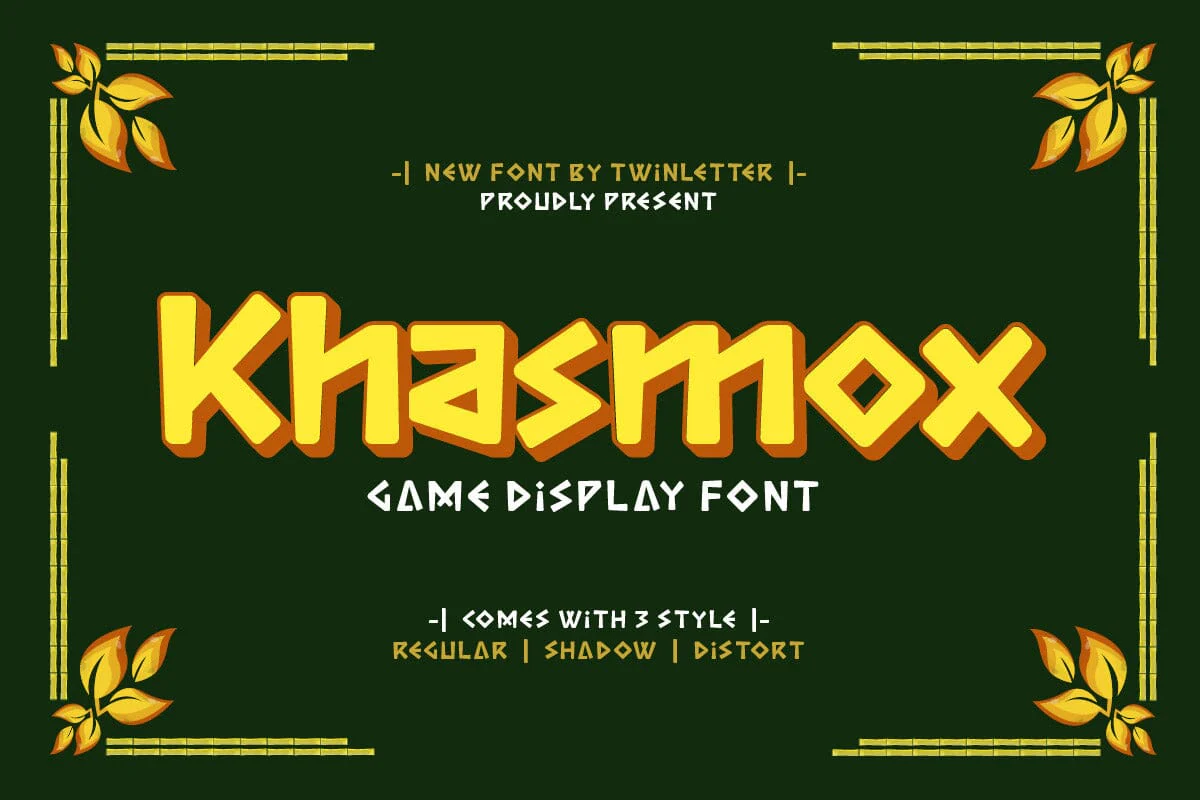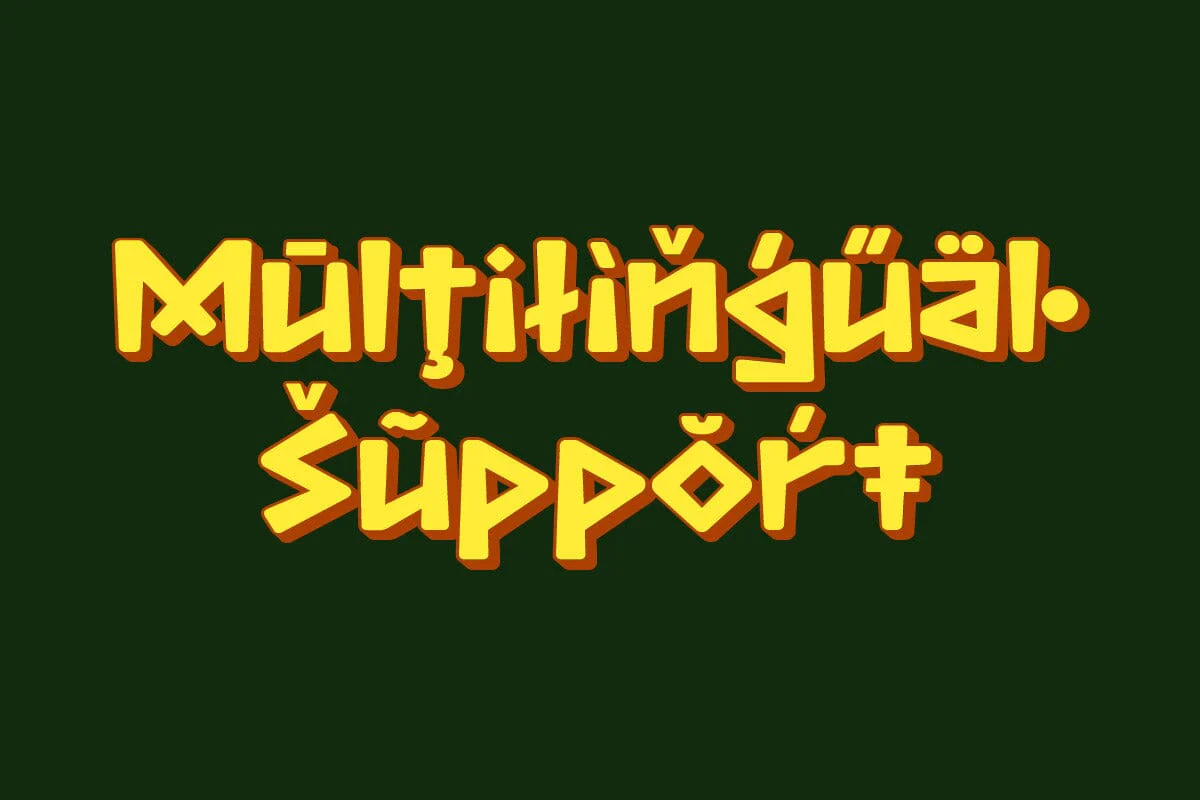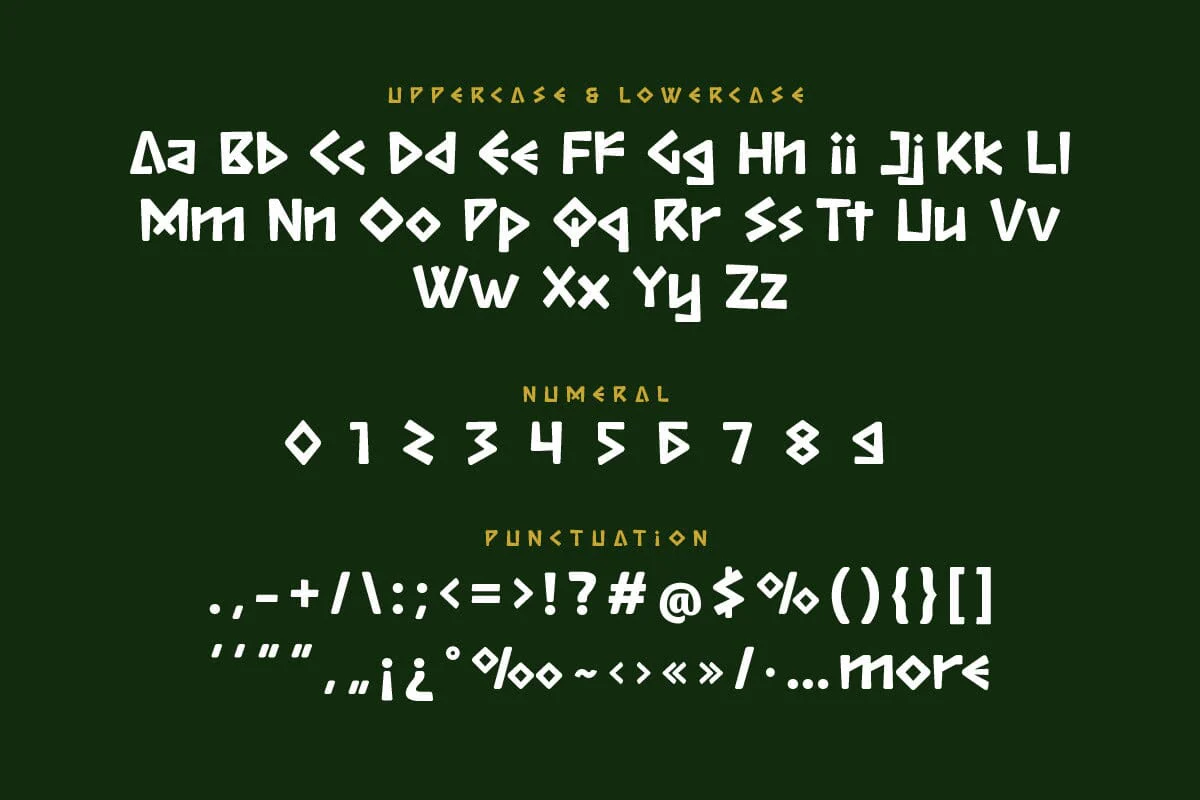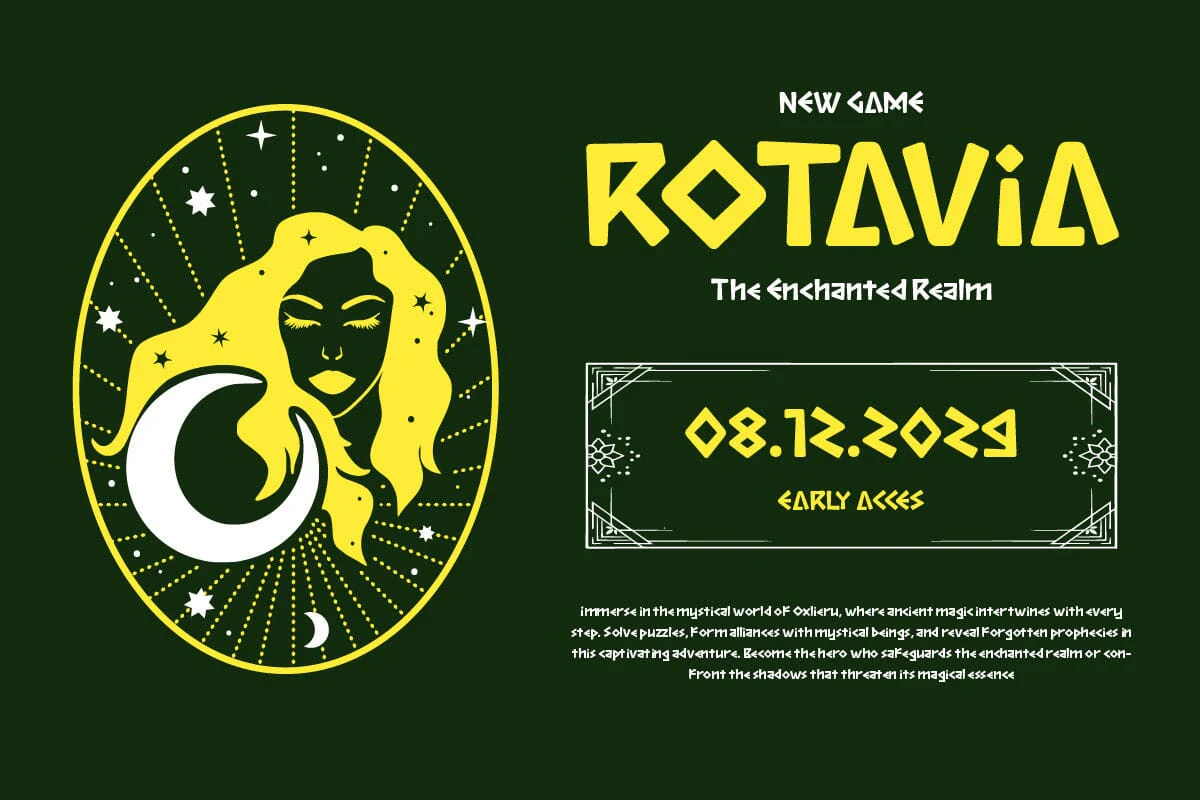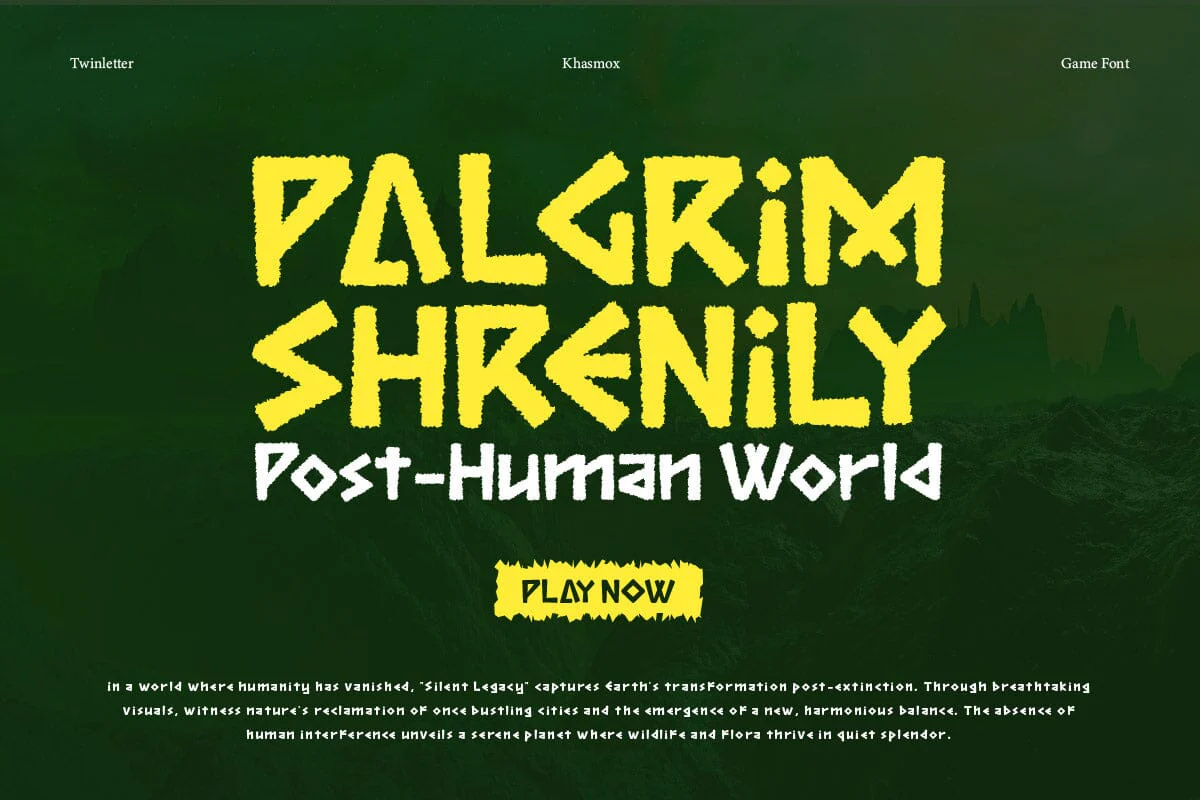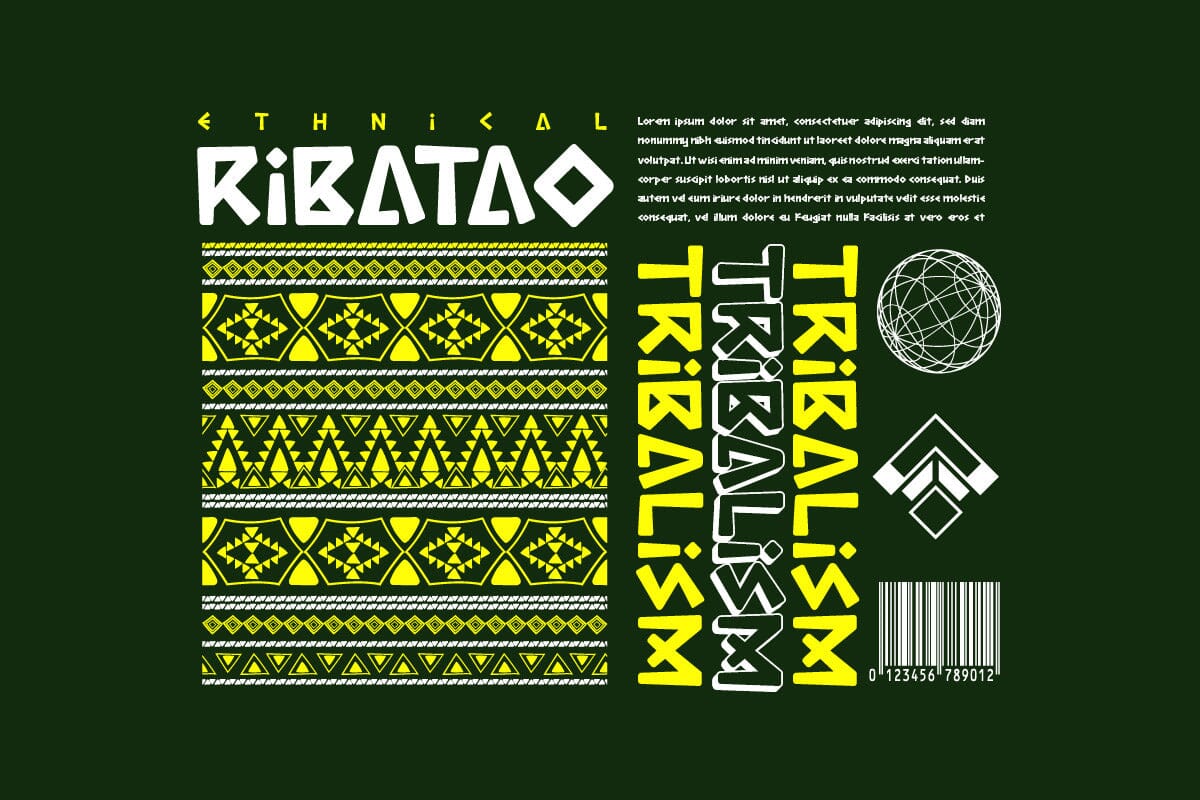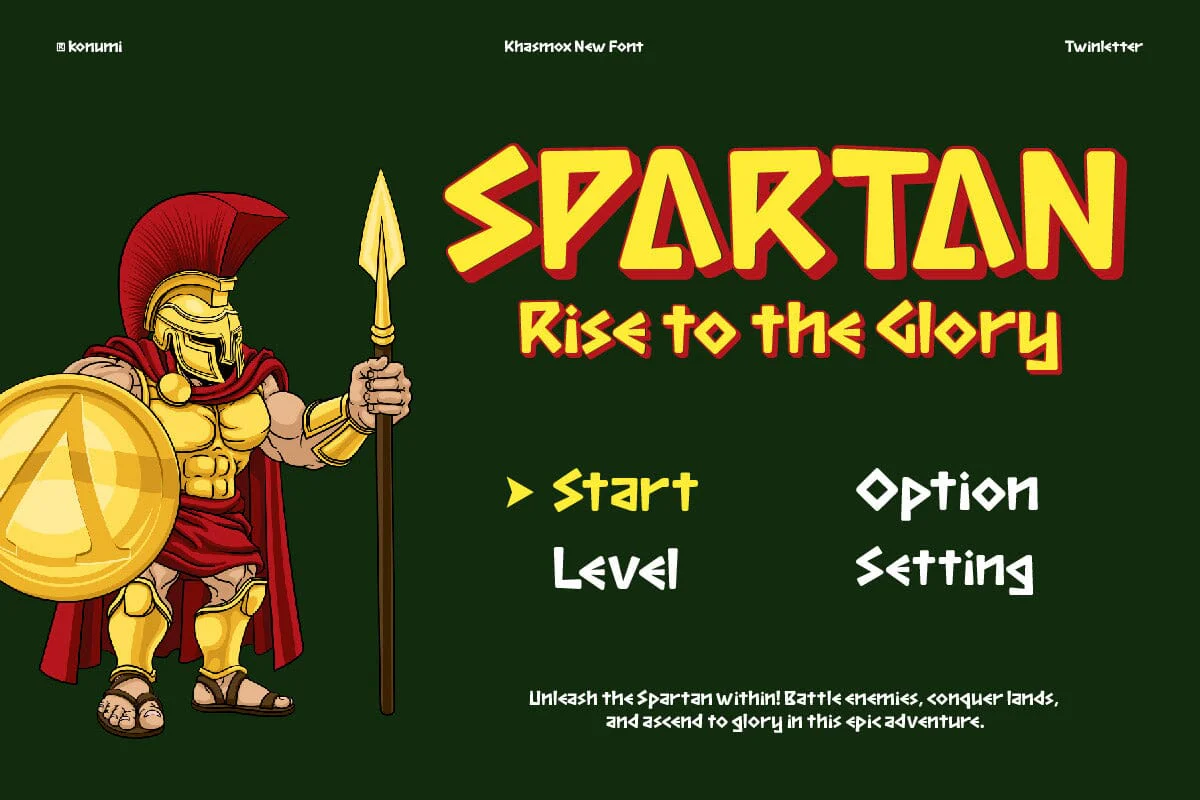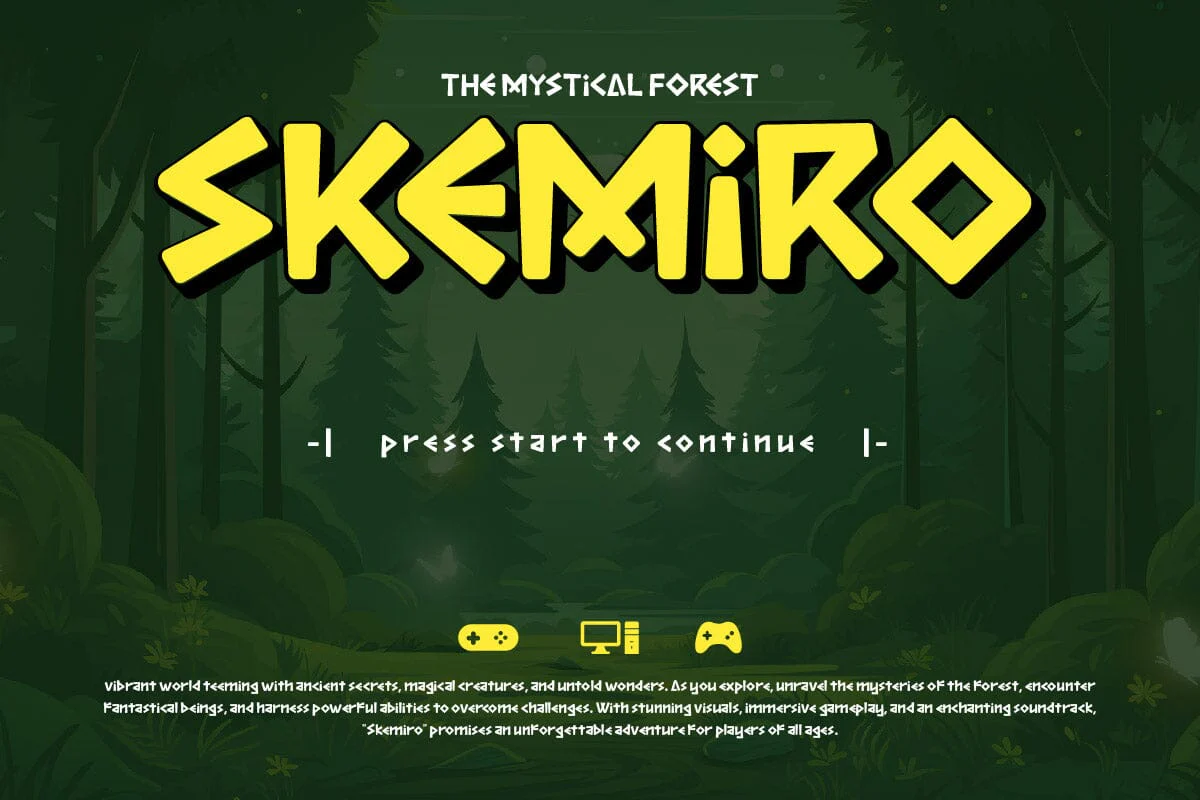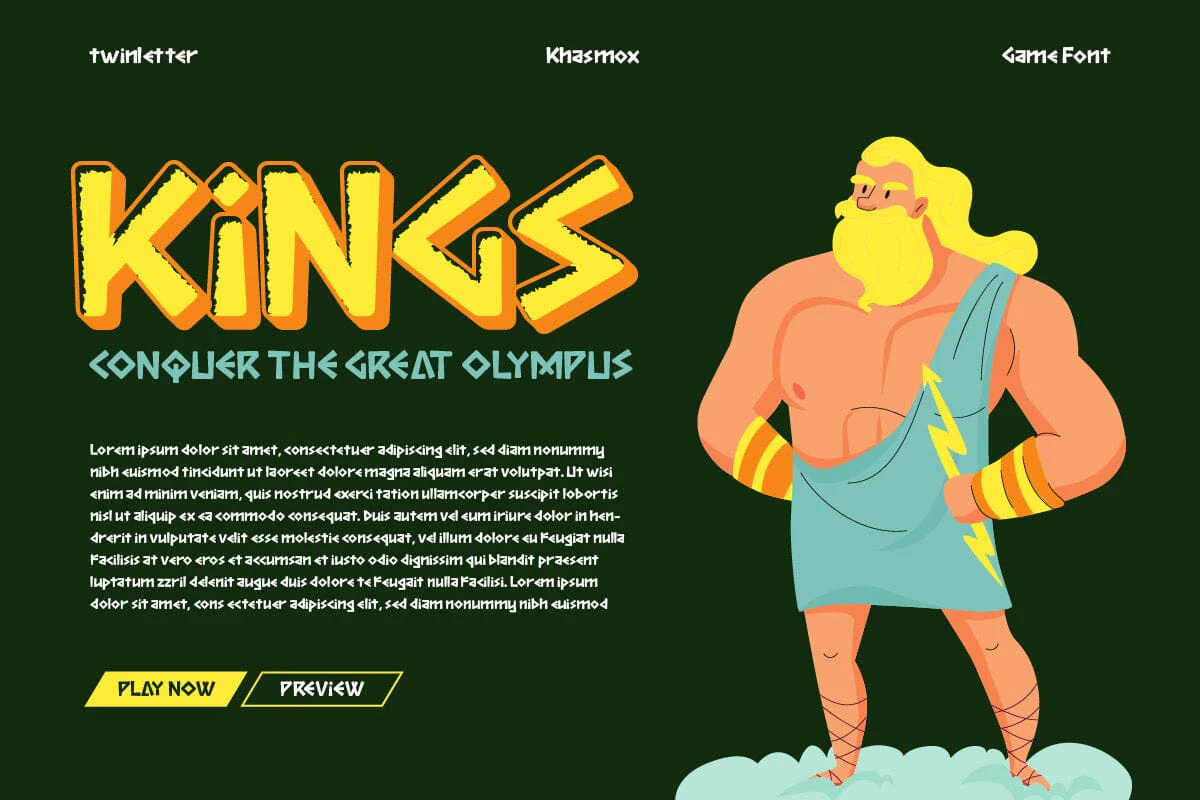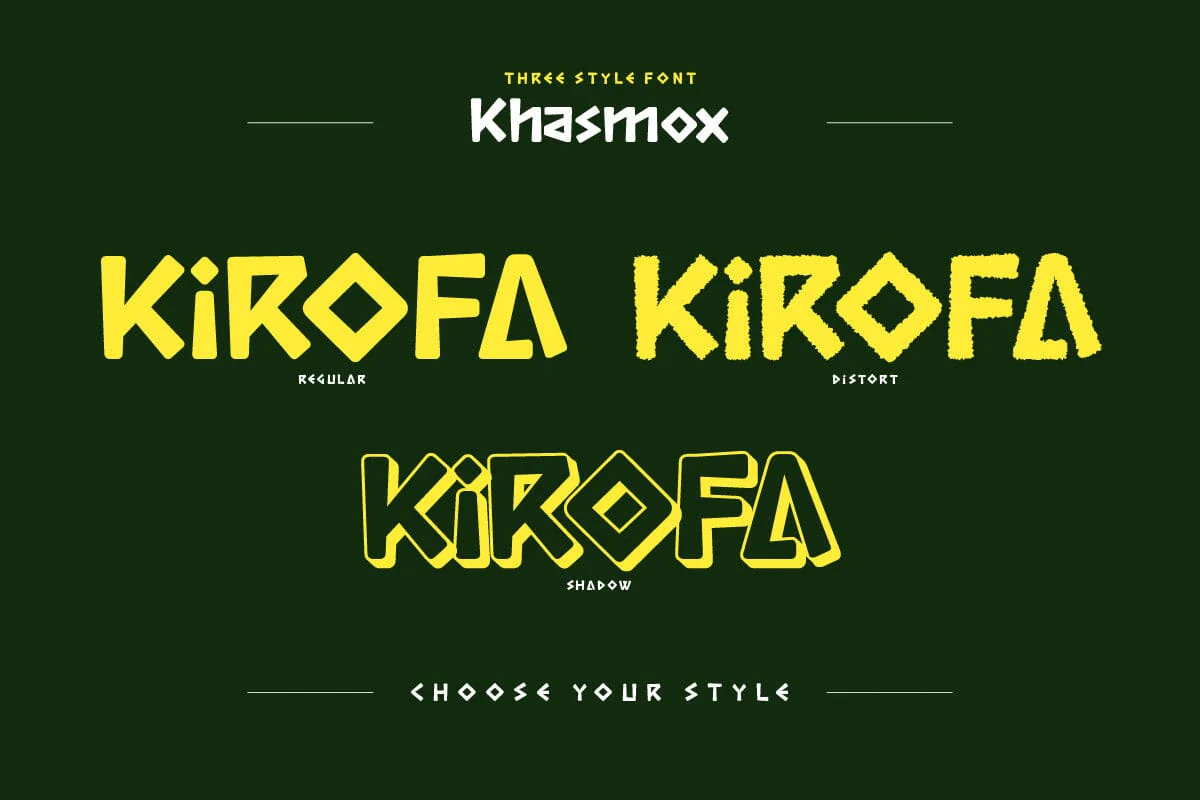
Khasmox - Game Display Font
Step into the world of gaming with Khasmox, a game display font that is all about energy and excitement. Its bold, angular shapes capture the essence of the gaming world, making it the perfect choice for creating eye-catching titles and headers in game interfaces and promotional materials. Whether you’re designing for a fast-paced action game or a strategic puzzle game, Khasmox will help you create a gaming experience that players won’t forget.